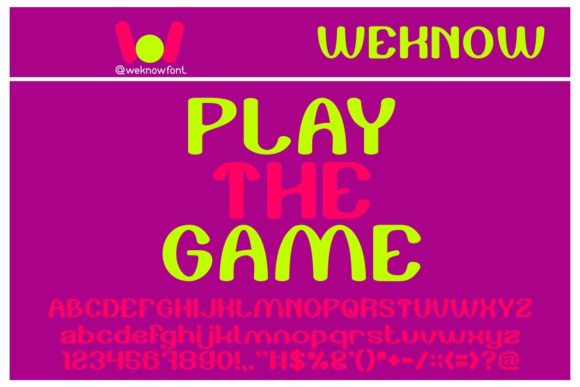
Introducing Play the Game Font, the ultimate display typeface guaranteed to make your designs stand out from the crowd. This captivating font is the perfect choice for captivating logos, headlines, posters, and even YouTube banners.
Crafted by the renowned designers at WeKnow, Play the Game exudes a playful yet sophisticated charm. Its whimsical curves and dynamic strokes evoke a sense of movement and energy, creating designs that demand attention.
Whether you're designing for print or digital, Play the Game Font is the key to unlocking your creativity. Its versatility knows no bounds, seamlessly adapting to a wide range of applications. Unleash your imagination and craft designs that resonate with your audience, leaving a lasting impression.
**Why choose Play the Game Font?**
* **Unleash your creativity:** Play the Game Font empowers you to push the boundaries of design, creating visually stunning concepts that captivate and inspire.
* **Capture attention:** Every stroke and curve of Play the Game Font is meticulously designed to attract attention, making your designs impossible to ignore.
* **Convey your message with style:** From playful invitations to bold headlines, Play the Game Font conveys your message with flair and panache, leaving a lasting impact on your audience.